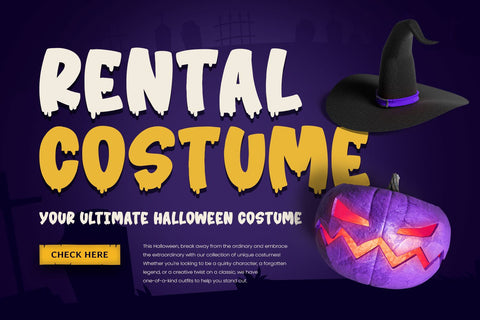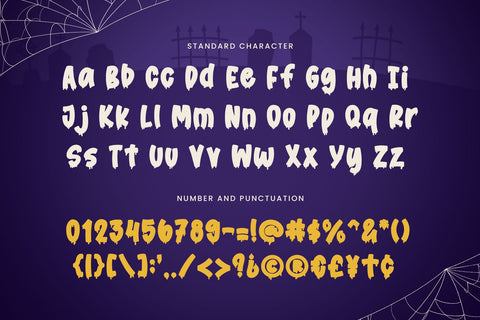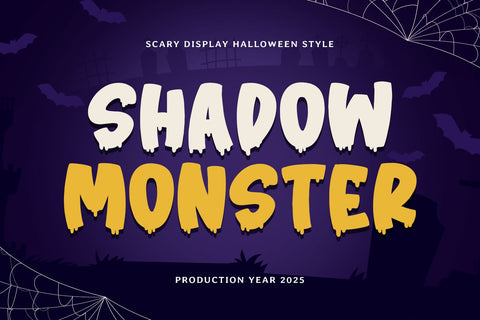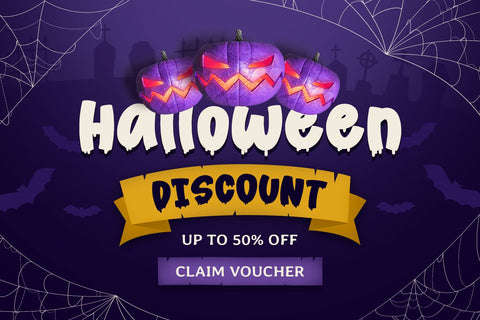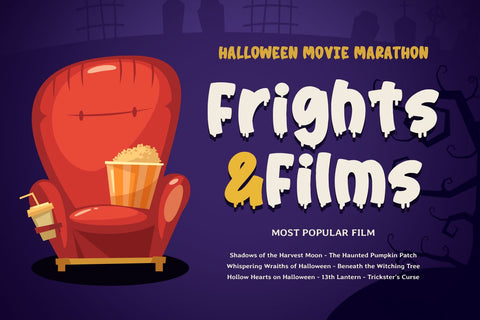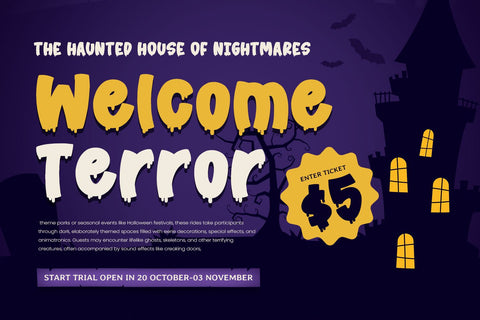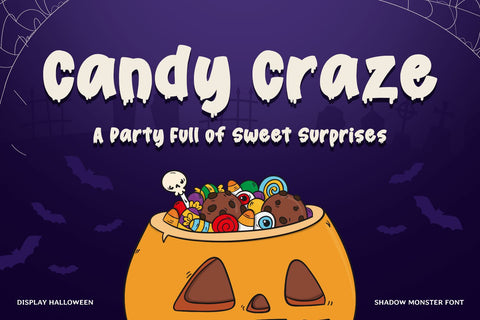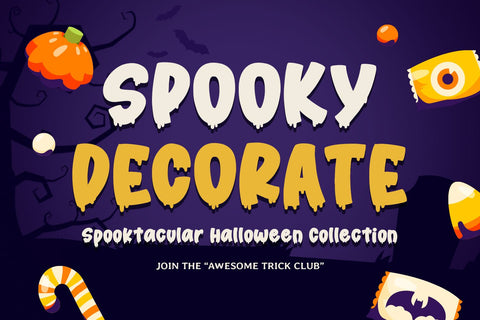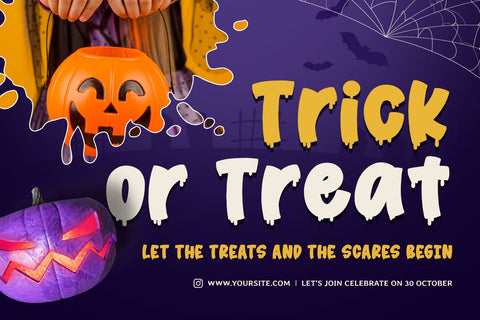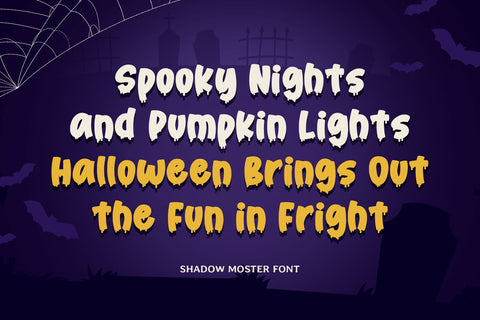
SHADOW MONSTER - Halloween Font
The "SHADOW MONSTER" font is a bold and eerie display typeface that captures the dark and mysterious essence of Halloween. Its shadowy, jagged edges and haunting curves evoke the feeling of something lurking just out of sight. This font is perfect for setting a spooky tone in your designs, whether for haunted houses, horror-themed events, or October celebrations.
With its decorative style, "SHADOW MONSTER" combines the thrill of horror with a playful twist, making it ideal for trick-or-treat posters, creepy invitations, and spooky social media graphics. The unique shadow details add depth and drama, creating an atmosphere of suspense and intrigue that draws viewers in.